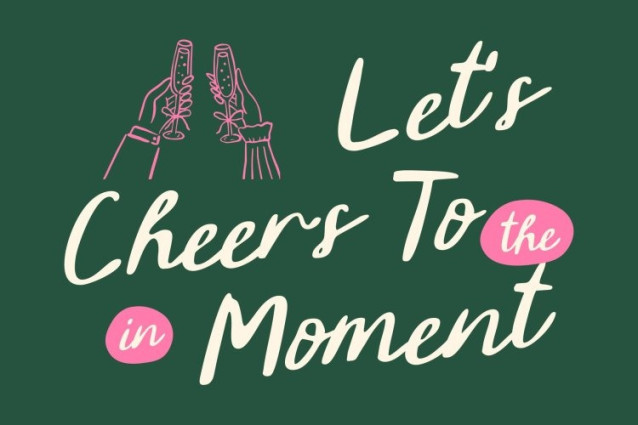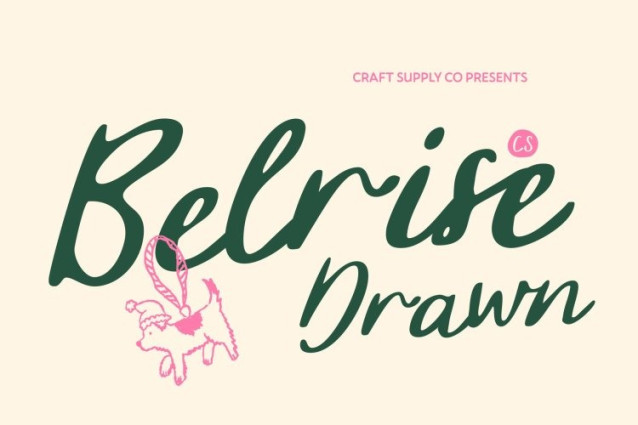
CS Belrise Drawn Font
CS Belrise Drawn Font This is a beauty handwriting script font crafted with soft, fluid strokes that bring elegant handwritten charm to every design. Each letter flows naturally into the next, creating a graceful rhythm that feels warm, expressive, and beautifully refined. The drawn texture enhances its handcrafted personality, giving the font an organic, authentic presence without losing clarity or style.
Mediterranean-Inspired Sophistication
Inspired by the relaxed elegance of Mediterranean handwriting, this font carries a light, sun-kissed character that feels romantic and effortless. Its flowing curves and airy movement evoke a sense of calm luxury, blending natural handwriting with tasteful refinement. The result is a script font that feels timeless yet modern, perfect for designs rooted in beauty and emotion.
Perfect for Branding and Luxury Packaging
This font excels in branding projects that require a premium yet personal touch. Its elegant strokes elevate logos, product labels, and upscale packaging, making it especially suitable for beauty, fashion, artisan goods, and lifestyle brands. The font communicates authenticity, quality, and understated luxury with ease.
Ideal for Weddings and Romantic Designs
With its romantic flow and delicate softness, this font shines in wedding invitations, event stationery, greeting cards, and heartfelt designs. Its natural movement enhances emotional messages, giving each piece a meaningful, intimate, and beautifully handcrafted feel.